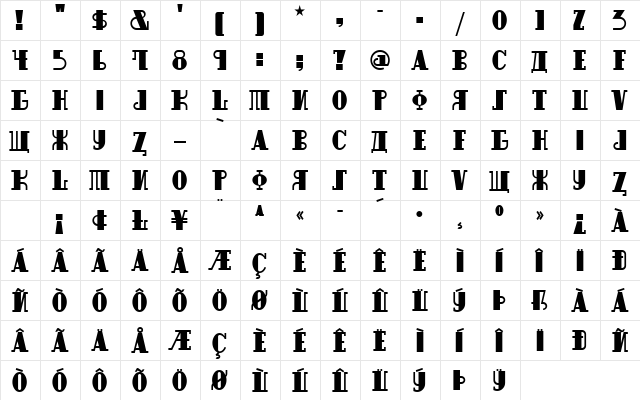
Raskalnikov Regular
Design Context for Raskalnikov Typeface
Raskalnikov is a composed and adaptable typeface that performs quietly and consistently across a wide range of design contexts.